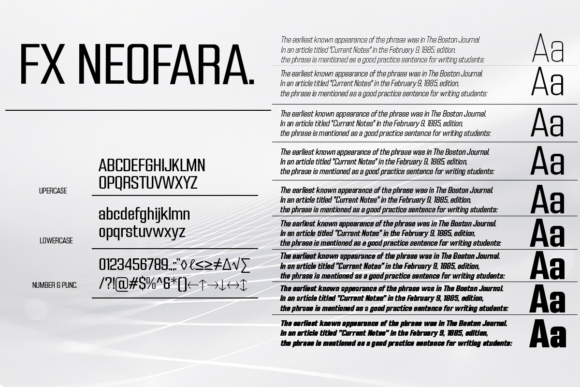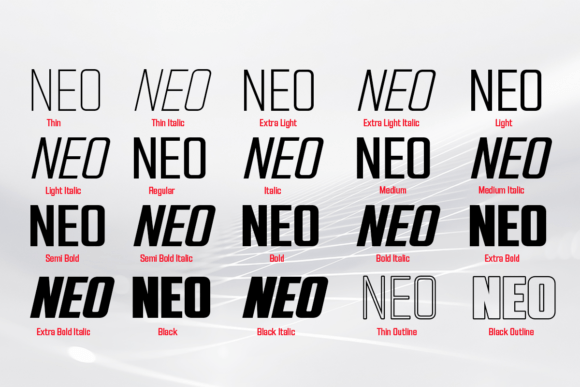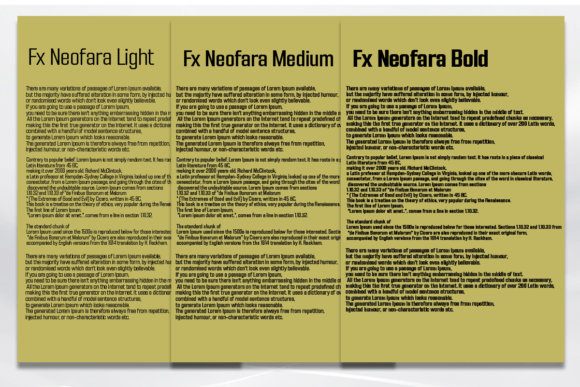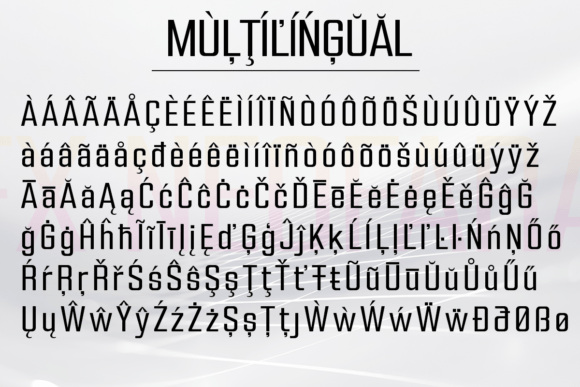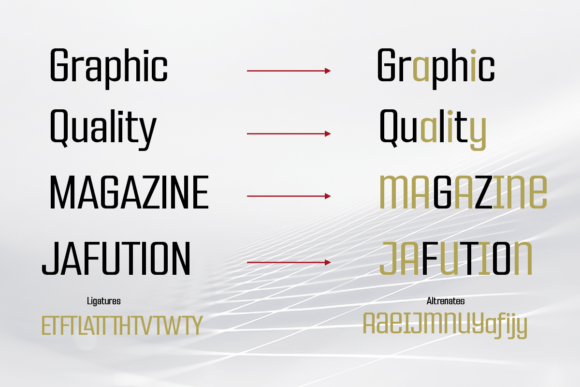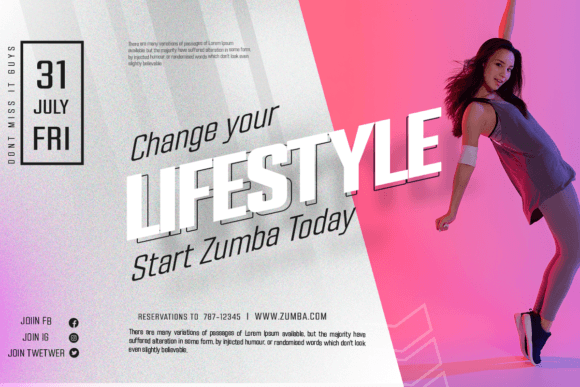
Introduction to Fx Neofara Font
Imagine you’re working on a new logo design, and you need the perfect font to bring your idea to life. You’ve spent hours browsing through design resources, searching for that one font that will make your creative project stand out. And then, you stumble upon it – the Fx Neofara Font. This cool and modern sans serif font family is a game-changer for designers, offering a high-quality design solution that’s perfect for documents, blogs, logos, social media, and marketing campaigns.
What makes the Fx Neofara Font so valuable for designers? Its versatility, for one. With its transparent background and sleek design, it’s a great choice for any project that requires a modern and professional look. Plus, it’s available for free download, making it an excellent addition to any designer’s toolkit. Whether you’re working on a personal project or a client’s campaign, the Fx Neofara Font is sure to elevate your design to the next level.
Key Features of Fx Neofara Font
- High-quality design resource ideal for creative projects requiring a unique aesthetic.
- Transparent background for seamless integration with various design elements.
- Characteristics include a clean, modern design with a touch of elegance, perfect for branding and typography projects.
- Designed with high resolution in mind, suitable for use in print and digital media, including web design and graphic design.
Honest Review: Fx Neofara Font
I recently came across the Fx Neofara Font and I have to say, I was impressed. As a designer, I’m always on the lookout for high-quality design resources that can elevate my creative projects. This font definitely fits the bill.
However, there are a few limitations: ⚠️ The font could benefit from more character variations, especially when it comes to punctuation and special characters. Additionally, some users may find the font to be a bit too minimalist, which can limit its use in certain design contexts.
Overall, I’m really impressed with the Fx Neofara Font. It’s a solid choice for designers who are looking for a high-quality, free font to use in their creative projects. With a little bit of creative tweaking, I think this font has the potential to become a go-to resource for many designers.
- Super versatile
To get the most out of the Fx Neofara Font, use it in combination with other design elements, such as images or graphics. You can also experiment with different font sizes, colors, and styles to create a unique look. Additionally, make sure to save your design in a high-resolution format to ensure the font looks great in print or digital formats.
The Fx Neofara Font is perfect for a variety of creative projects, including graphic design, branding, and publishing. You can use it to create logos, business cards, or brochures. The font’s modern design and high-quality look make it a great choice for any project that requires a professional touch.
Is Fx Neofara Font a high-quality font?
Yes, Fx Neofara Font is a high-quality font designed to provide a unique and stylish look for your creative project. The font is carefully crafted to ensure smooth rendering and precise typography, making it an excellent choice for designers seeking a professional-grade font.